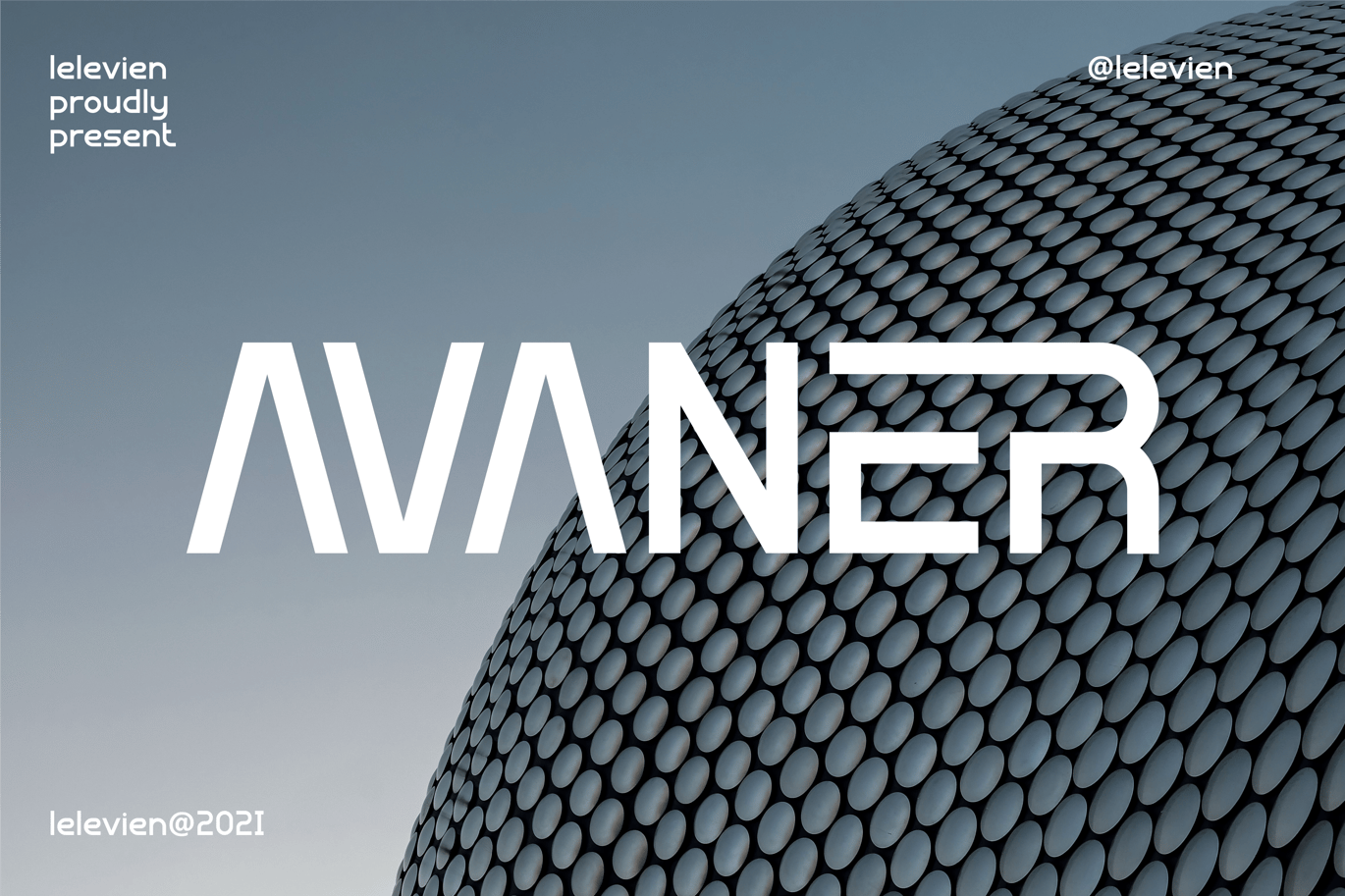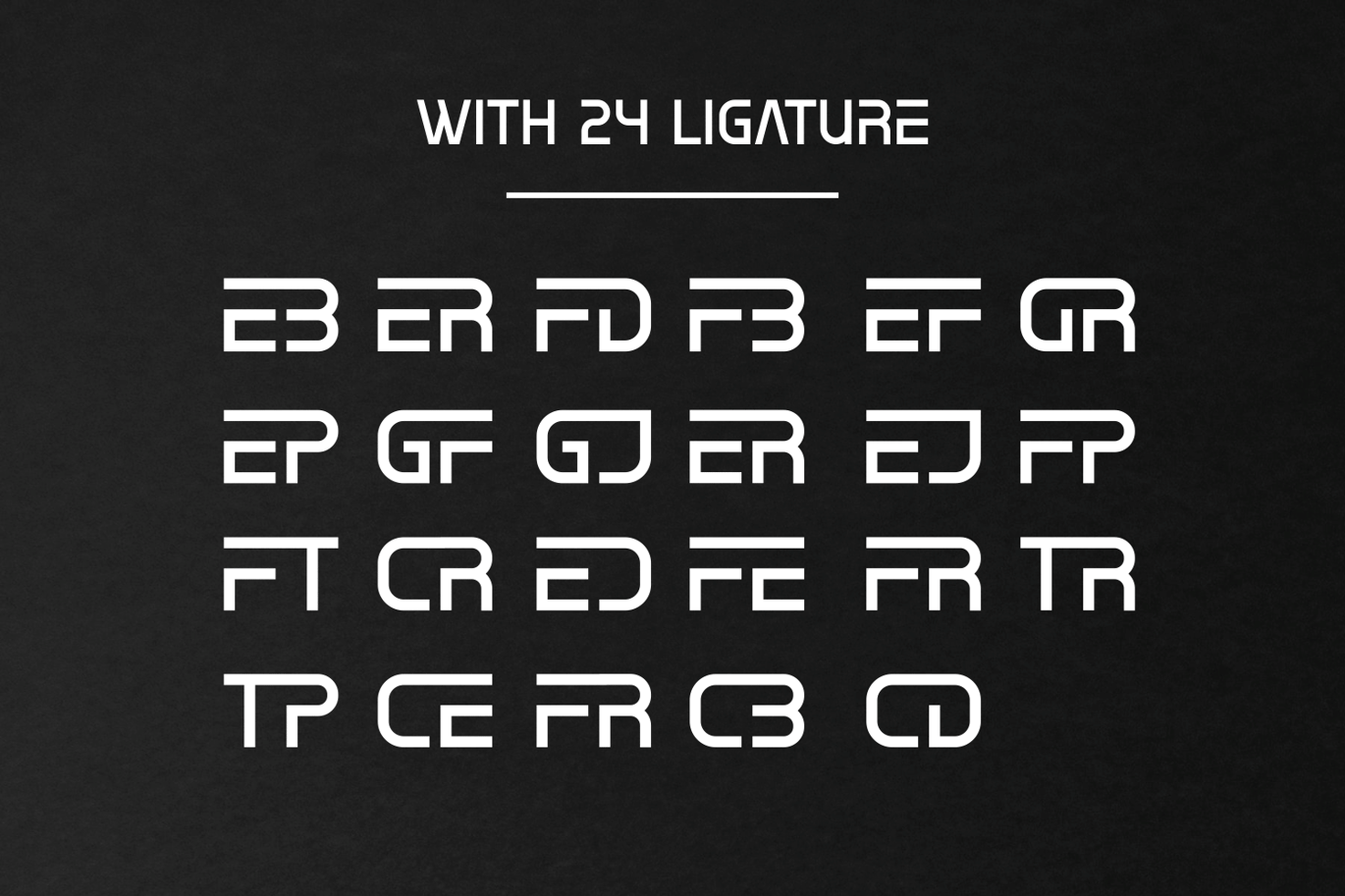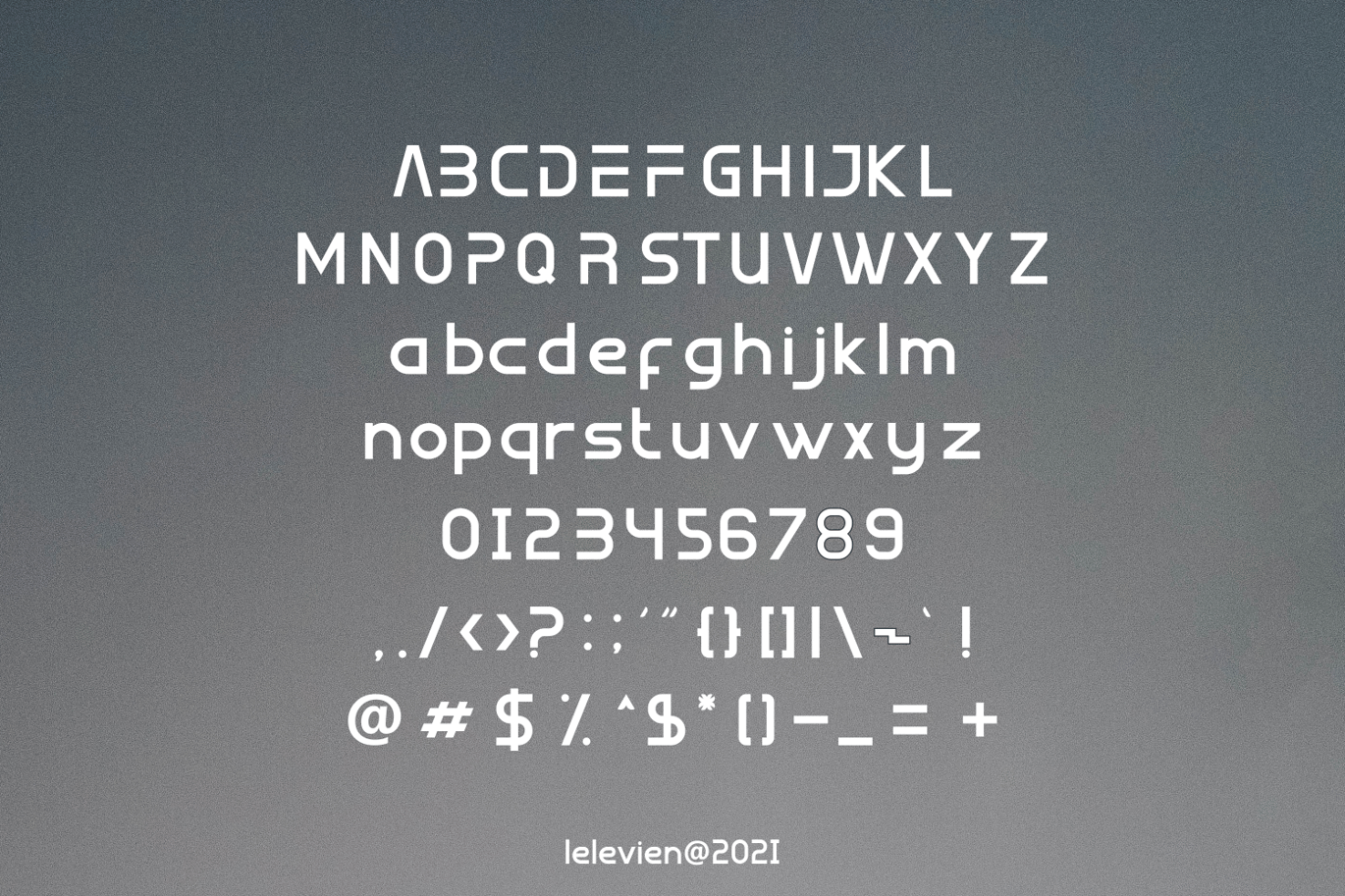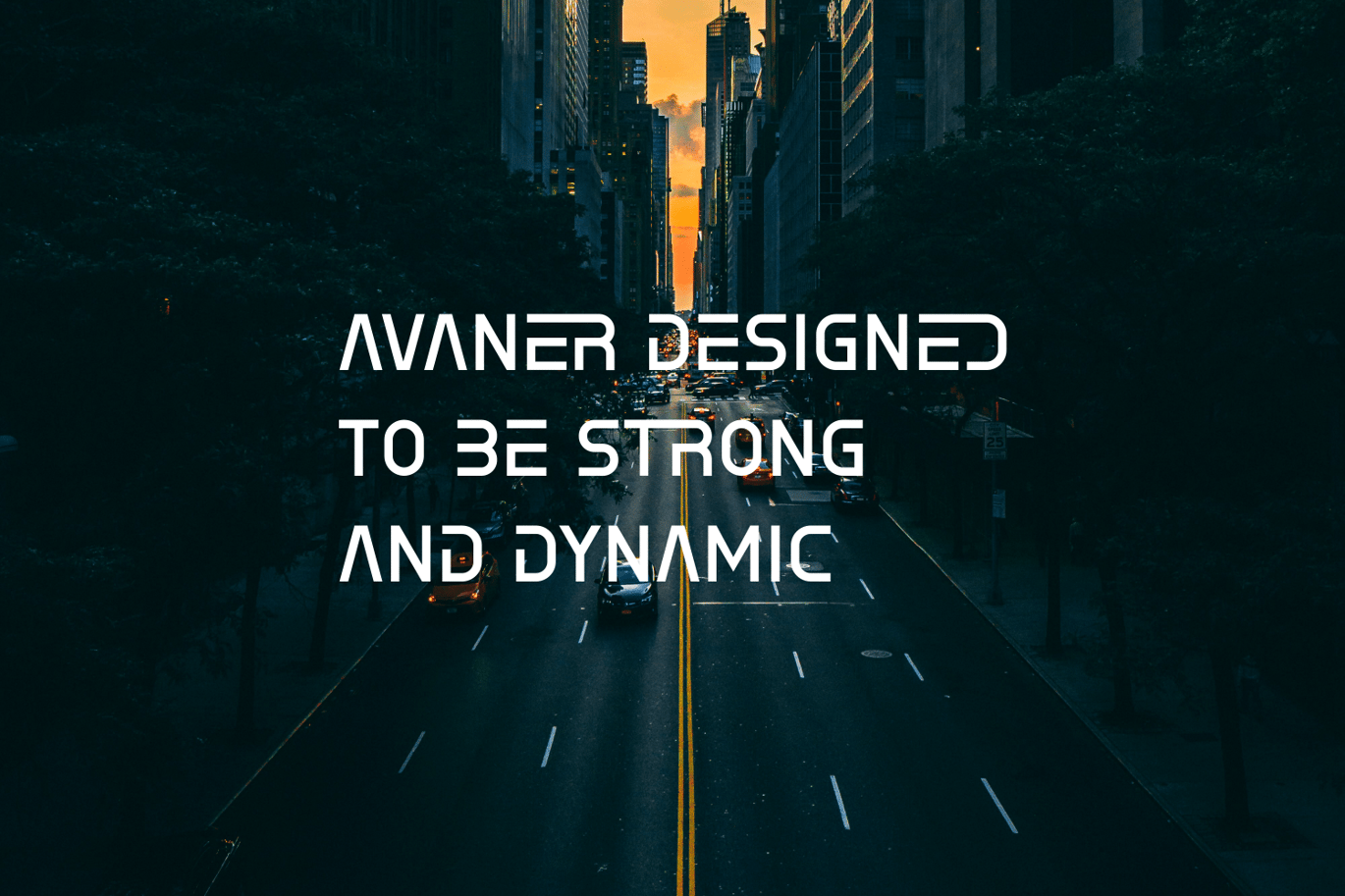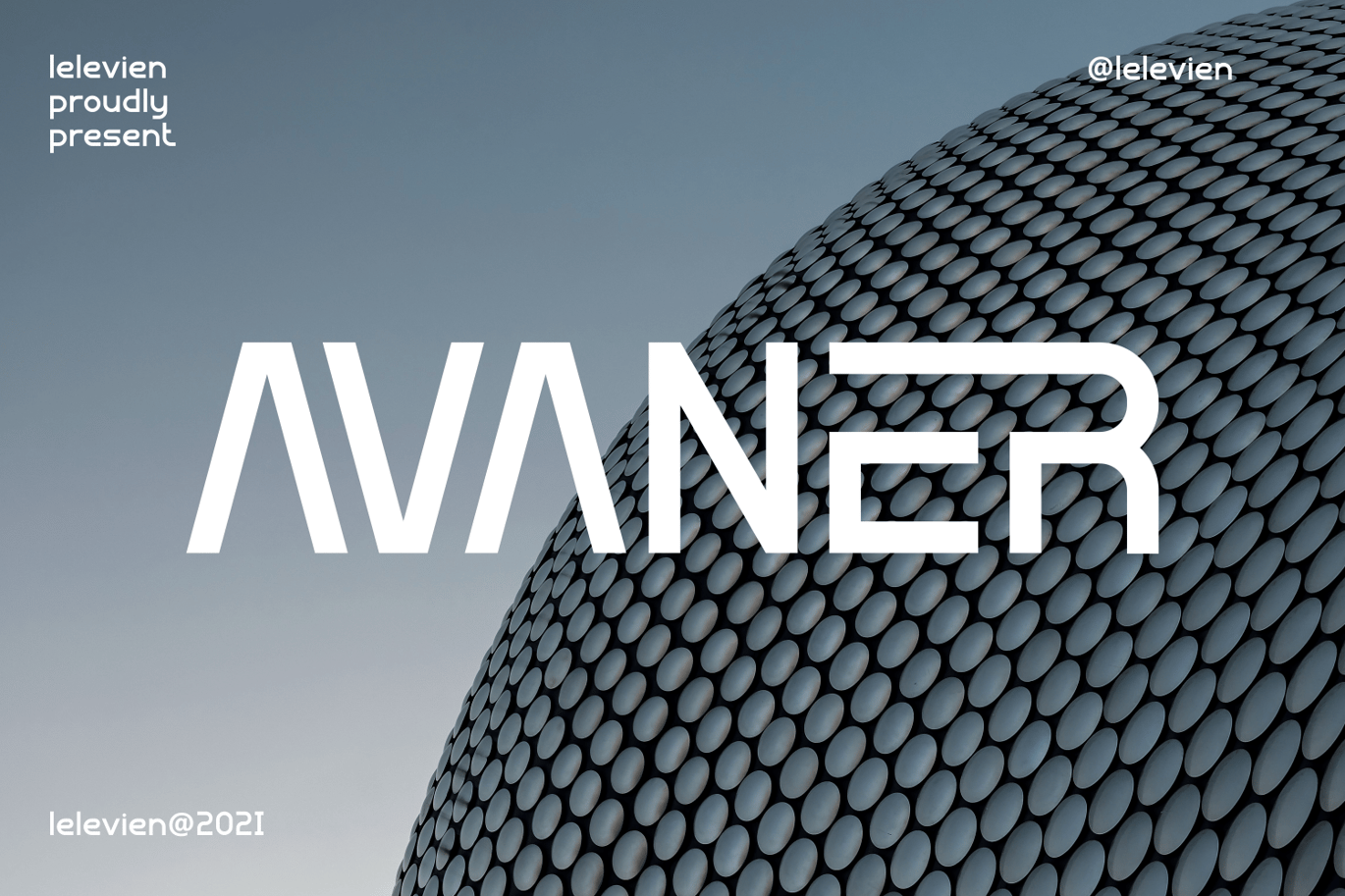
avaner sans serif font
avaner is a wide, contemporary sans serif typeface that was conceived as a branding and editorial solution. With it’s ten weights, ranging from an elegant Thin weight to a solid and dense Black weight, this family was designed as a versatile and flexible that can be used on a range of projects and mediums.